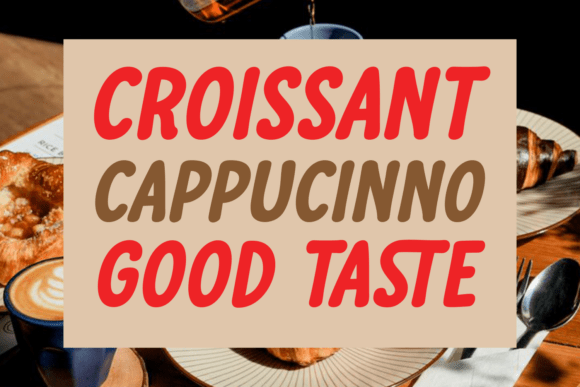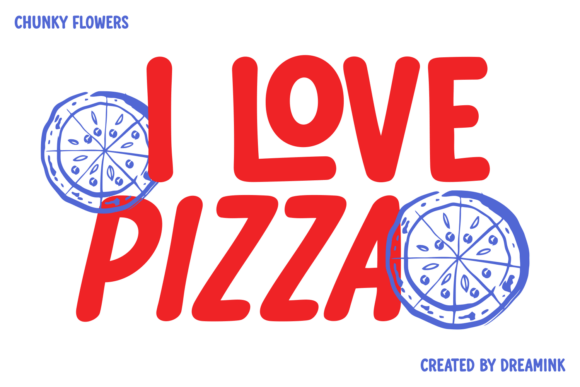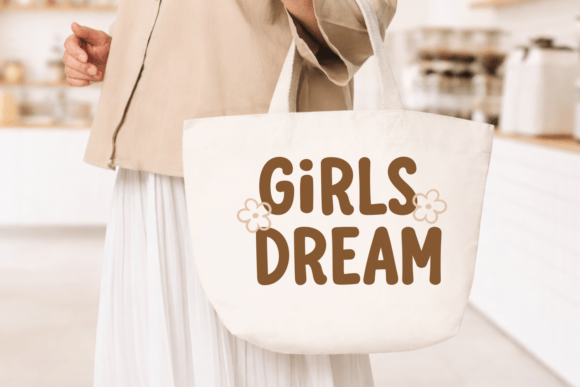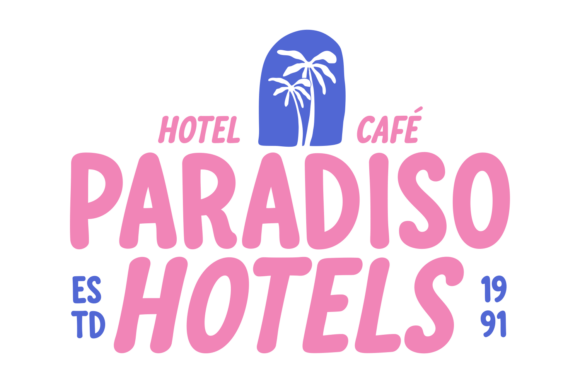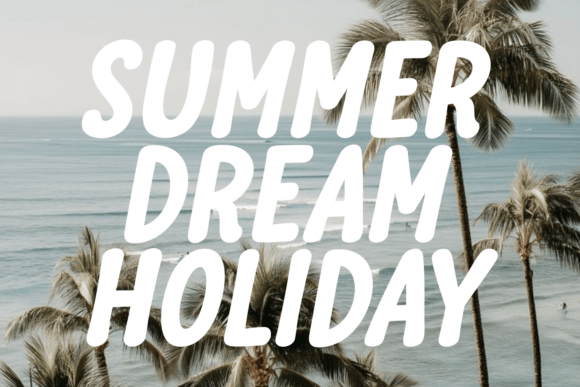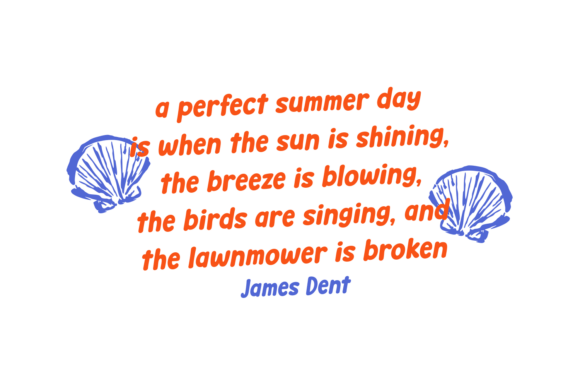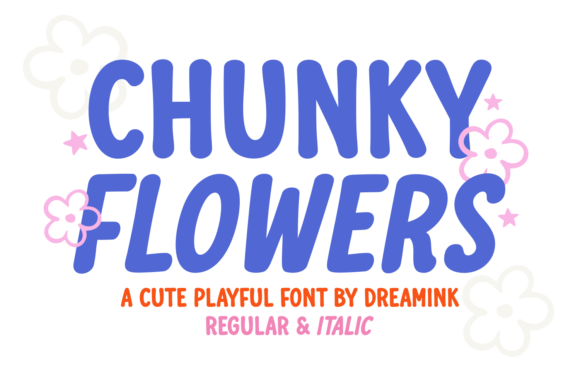
Introducing Chunky Flowers Font: The Ultimate Display Font for Whimsical Designs
Are you tired of using the same old fonts for your designs? Look no further than Chunky Flowers Font, a delightful fusion of bold, jolly, and winsome display font qualities that is sure to add a touch of warmth, merriment, and personality to every design. With its plump, rounded, and spirited letterforms, Chunky Flowers is the perfect choice for designers and crafters looking to create eye-catching and engaging content.
What Makes Chunky Flowers Font So Special?
Chunky Flowers Font is meticulously crafted to infuse a sense of joy and playfulness into every design. Its soft, hefty attire and gently rolling letterforms create a chummy, captivating visage that is sure to grab attention. Whether you’re working on children-oriented designs, feminine projects, endearing branding, artisan product wrappings, or even sprightly social media content, Chunky Flowers is the perfect choice.
Chunky Flowers Font is incredibly versatile and can be used for a wide range of design projects. Some of the perfect uses for this font include:
- Kids branding: Add a touch of whimsy and fun to your kids’ brand with Chunky Flowers.
- Birthday invites: Create eye-catching and engaging birthday invitations that will make the birthday boy or girl feel special.
- Sticker & sublimation design: Use Chunky Flowers to add a playful touch to your stickers and sublimation designs.
- Nursery decor: Add a touch of sweetness and innocence to your nursery decor with Chunky Flowers.
- T-shirt designs: Create fun and playful t-shirt designs that are perfect for kids and adults alike.
- Planners and journals: Add a touch of personality to your planners and journals with Chunky Flowers.
- Welcoming brand logos: Use Chunky Flowers to create a warm and welcoming brand logo that will make your customers feel at home.
- Craft & DIY project: Add a touch of whimsy and fun to your craft and DIY projects with Chunky Flowers.
Designed with Ease-of-Use in Mind
Chunky Flowers Font is designed with ease-of-use in mind, making it easy to incorporate into your designs. Its flowing letterforms look beautiful on large banner texts, promising legibility while its whimsical style imparts an unmissable novelty. Whether you’re a seasoned designer or a beginner, Chunky Flowers is easy to use and will add a touch of charm to your designs.
Key Features of Chunky Flowers Font
Some of the key features of Chunky Flowers Font include:
- Bold, jolly, and winsome display font qualities
- Plump, rounded, and spirited letterforms
- Soft, hefty attire and gently rolling letterforms
- Perfect for children-oriented designs, feminine projects, and endearing branding
- Incredibly versatile and can be used for a wide range of design projects
- Designed with ease-of-use in mind
If you’re looking for a font that will add a touch of whimsy and fun to your designs, look no further than Chunky Flowers Font. With its bold, jolly, and winsome display font qualities, plump, rounded, and spirited letterforms, and ease-of-use, Chunky Flowers is the perfect choice for designers and crafters. Whether you’re working on kids branding, birthday invites, sticker & sublimation design, nursery decor, t-shirt designs, planners, journals, welcoming brand logos, or craft & DIY projects, Chunky Flowers is sure to breathe life into your designs.